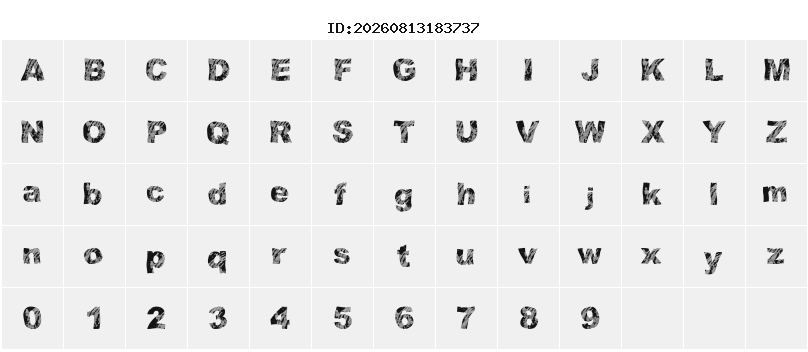
strippin'dirty Preview
• Font Name: strippin'dirty
• Designer: Vered Gilad Friedman
• Description: Based on Arial font
About strippin'dirty.ttf
strippin'dirty.ttf is a modern, elegant sans-serif font designed for ultimate readability and visual harmony. Perfect for branding, headlines, web design, and print materials.